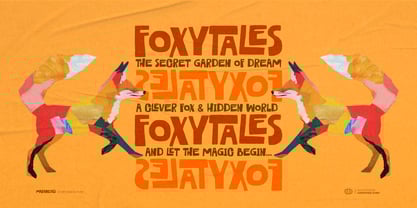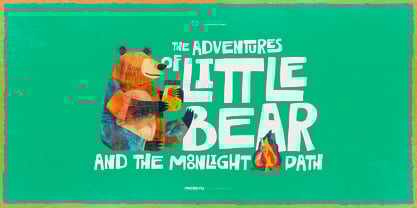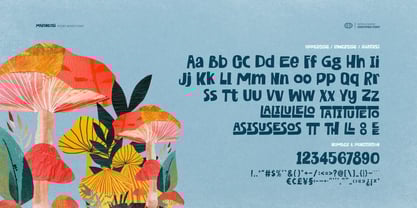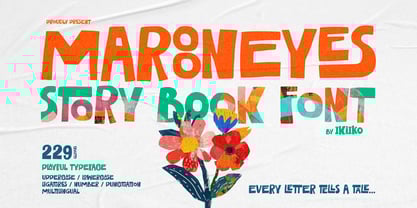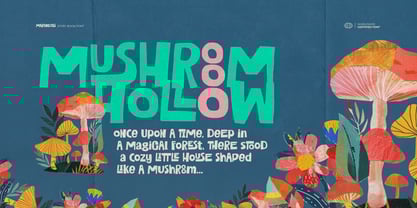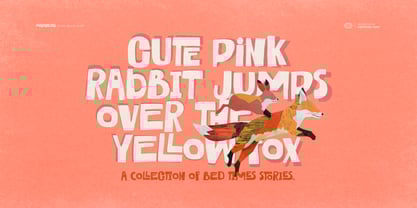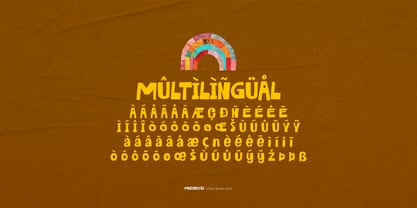
Maroon Eyes
by IKIIKOWRK
Proudly present Maroon Eyes - Story Book Font, created by ikiiko.
Maroon Eyes is a bold sans-serif typeface crafted to bring your kids' storybooks and creative projects to life. With its fancy doodle-inspired design, this font exudes a sense of fun and cheerfulness, making it the perfect choice for illustrating dreams and fairy tales. Its playful yet clean style ensures readability while adding a whimsical touch to your stories. Whether you're designing a magical world or narrating adventurous tales, Maroon Eyes will spark joy and imagination in every letter!
This font is perfect for children’s books, storybooks, covers, illustrations, posters, packaging, food & beverages and other designs that need a touch of fun and creativity.
• Uppercase & Lowercase
• Numbers & Punctuation
• Ligatures
• Multilingual Support